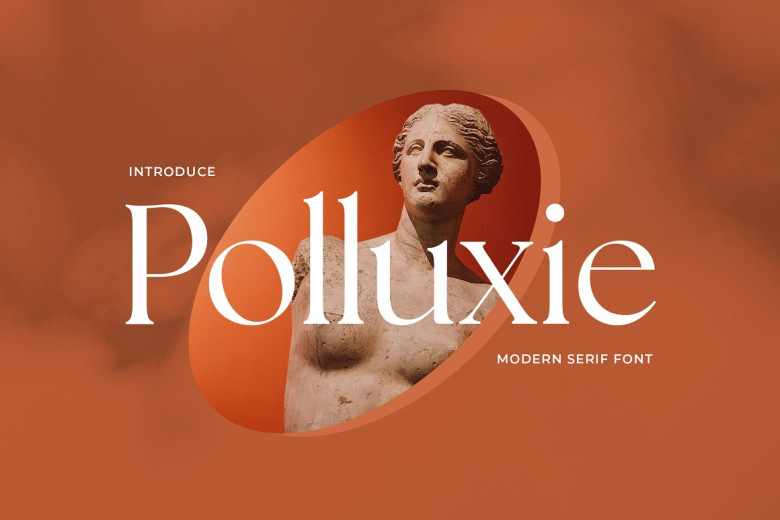
Polluxie Feminine Font
Polluxie Feminine Serif Font is our latest offering – an elegant, modern Serif font designed with feminine qualities in mind. Perfect for stationary designs, signature logo wedding logos, typography quotes on book covers or magazine covers as well as headers for websites or clothing branding, packaging design or editorial branding projects where feminine qualities must be expressed through graphic elements as well.
Polluxie Feminine Serif Font